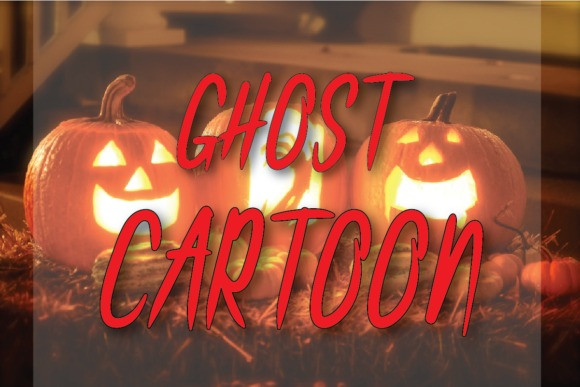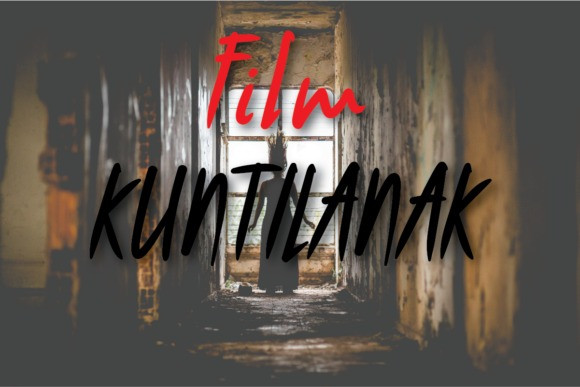
Mysterio Handwritten Font
Hello, Mysterio Handwritten Font is sans serif font. It brings joyful and happiness to all of us. Inspired by handlettering with marker pen with bold and strong style. This font is ideal for display, text, print, branding, birthday, birthday invitation, with a set of optimal characters for your design in any layout. Happy Design